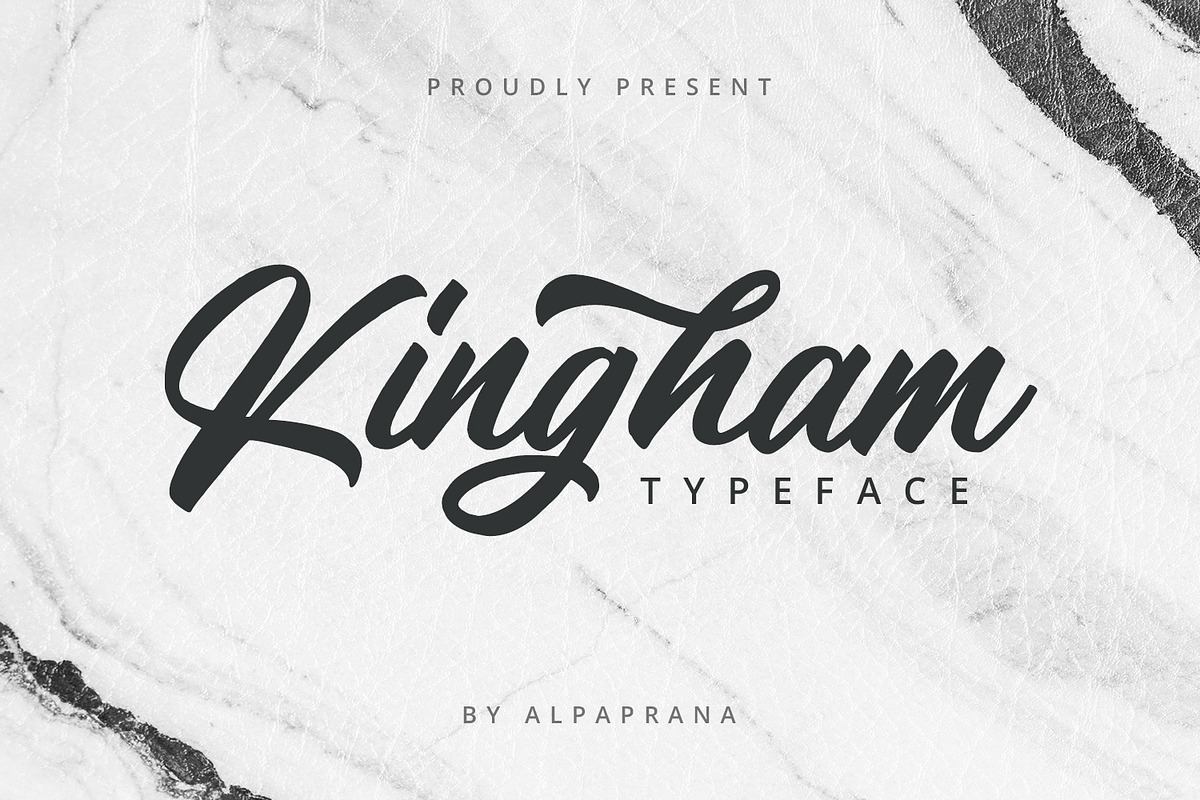
Kingham Script Font Free Download is an elegant, flowing handwritten typeface that exudes charm and sophistication. With its delicate curves and signature-style strokes, this font is perfect for wedding invitations, branding, social media content, luxury packaging, and anything that needs a refined, personal touch.
Inspired by classic calligraphy, Kingham features smooth ligatures and graceful alternates that allow for beautifully customized text. Whether you’re designing for high-end fashion or heartfelt messages, this font brings class and emotion to every project.